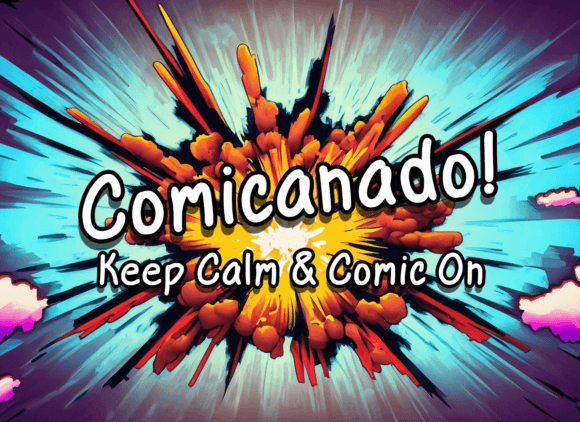
Introducing Comicanado, the font sensation that will ignite your imagination and transform your comic creations into captivating masterpieces. Bold, expressive, and bursting with character, Comicanado embodies the essence of comic artistry, offering a vibrant palette of visual possibilities that will leave your audience spellbound.
Crafted by the visionary minds at Phelans-Fontastic-Ventures, Comicanado is a script font family that seamlessly blends the whimsical charm of comics with the sophistication of professional design. Its meticulously crafted characters dance across the page, capturing the dynamic energy and playful spirit of your comic universe.
With Comicanado at your fingertips, you'll embark on a creative journey where imagination reigns supreme. Express your unique storytelling flair, bring your characters to life with captivating dialogue, and create breathtaking visuals that leap off the page. Whether you're a seasoned comic artist or just starting your creative adventure, Comicanado is your trusty companion, guiding you through the fantastical realm of comic storytelling.
Unleash the boundless creativity within you and let Comicanado ignite your passion for visual expression. Experience the thrill of creating comics that resonate with readers of all ages, captivating them with every panel and leaving them eager for more. Embrace the power of Comicanado and elevate your comic art to new heights of brilliance.